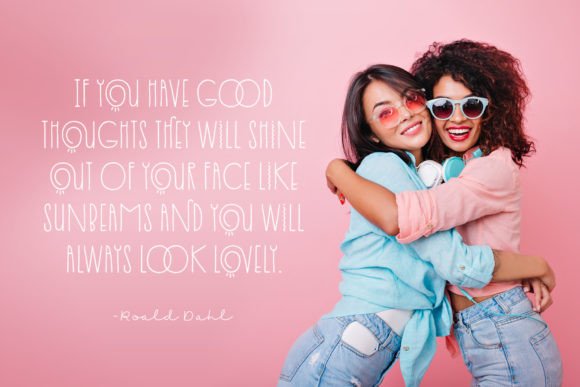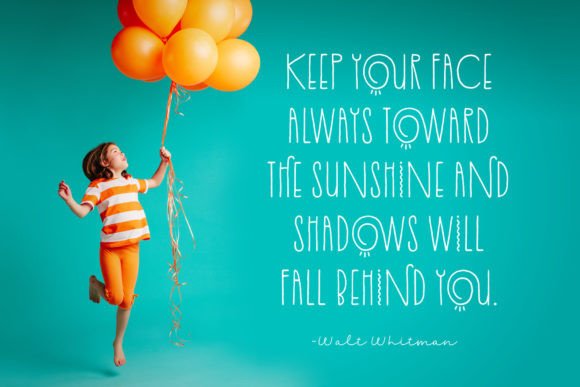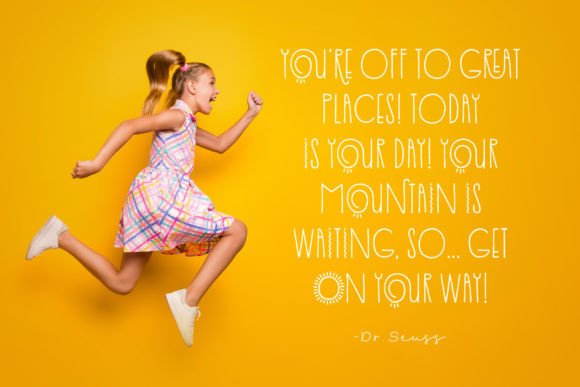
Introduction to Pooling Around Font
Have you ever been working on a creative project, pouring over design elements and perfecting the perfect look, only to hit a roadblock when it comes to finding the perfect font? That’s exactly what happened to us, which is why we’re excited to introduce you to the Pooling Around Font – a sweet, summery, sans serif font that’s sure to bring a touch of sunshine to your design.
With its playful ligatures and high-quality design, the Pooling Around Font is a valuable resource for any designer looking to add a little something extra to their project. Whether you’re working on a branding project, creating graphics for a social media campaign, or just need a font for a personal design project, this font is sure to deliver.
What Makes the Pooling Around Font So Special?
Key Features of Pooling Around Font
- High-quality design resource for creative projects, ideal for use in digital and print media.
- Features a transparent background, allowing for seamless integration with various design elements.
- Designed with a high resolution of 300 DPI, ensuring crisp and clear typography in various sizes.
- Comes in a single font size, making it easy to use in a variety of design applications.
- A unique and creative design element that can add a professional touch to any project.
Honest Review: Pooling Around Font
I recently stumbled upon the Pooling Around Font, and I’m excited to share my thoughts on this creative design resource. As a designer, I’m always on the lookout for high-quality fonts that can elevate my projects.
What works well: ✨ The font has a unique, playful style that’s perfect for creative projects requiring a fun and carefree vibe. The transparent background option makes it easy to layer and manipulate the text in various design applications.
Some limitations: ⚠️ The font is available for free download, but it’s not clear if it’s for personal or commercial use. Additionally, the font’s consistency can be inconsistent in certain font sizes, which may require some tweaking in certain design scenarios.
Overall, I’m impressed with the Pooling Around Font’s potential. It’s a great addition to any design library, especially for those working on projects that require a lighthearted and whimsical tone. However, be aware of the potential limitations and use it accordingly.
Key features:
- Unique, playful style
- High-quality design resource
- May require tweaking for certain design scenarios
Pooling Around Font
Introduction to Pooling Around Font
P pooling around font is a unique and versatile design resource perfect for creative projects. This font offers a transparent background, allowing it to seamlessly blend with any image or background.
Tips for Getting the Most Out of Pooling Around Font
To get the most out of Pooling Around Font, use it in creative projects that require a high-quality, transparent font. You can also experiment with different font sizes, colors, and styles to create unique designs.
Common Use Cases for Pooling Around Font
Pooling Around Font is commonly used in:
- Graphic design projects
- Web design projects
- Print design projects
- Marketing materials
When to use: Poolish Font is suitable for designs that require a subtle, textured font. It’s perfect for creating a sense of depth and dimensionality in your design.